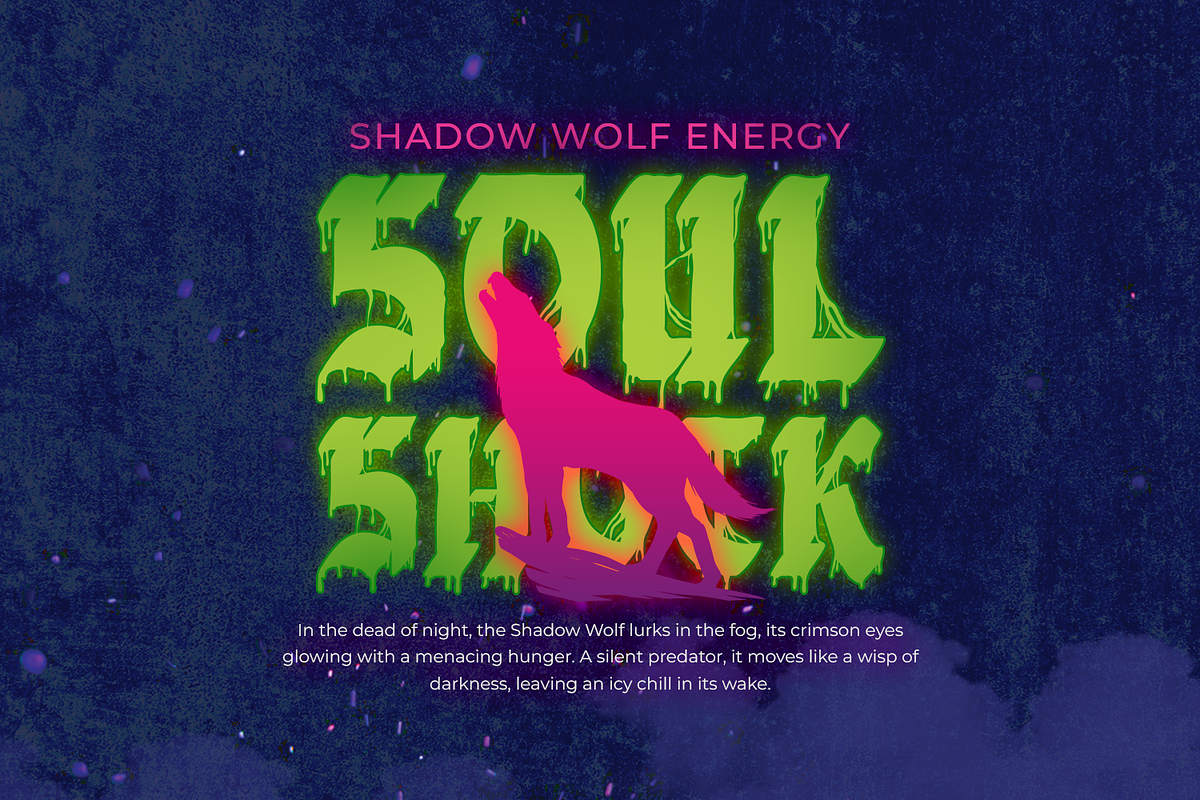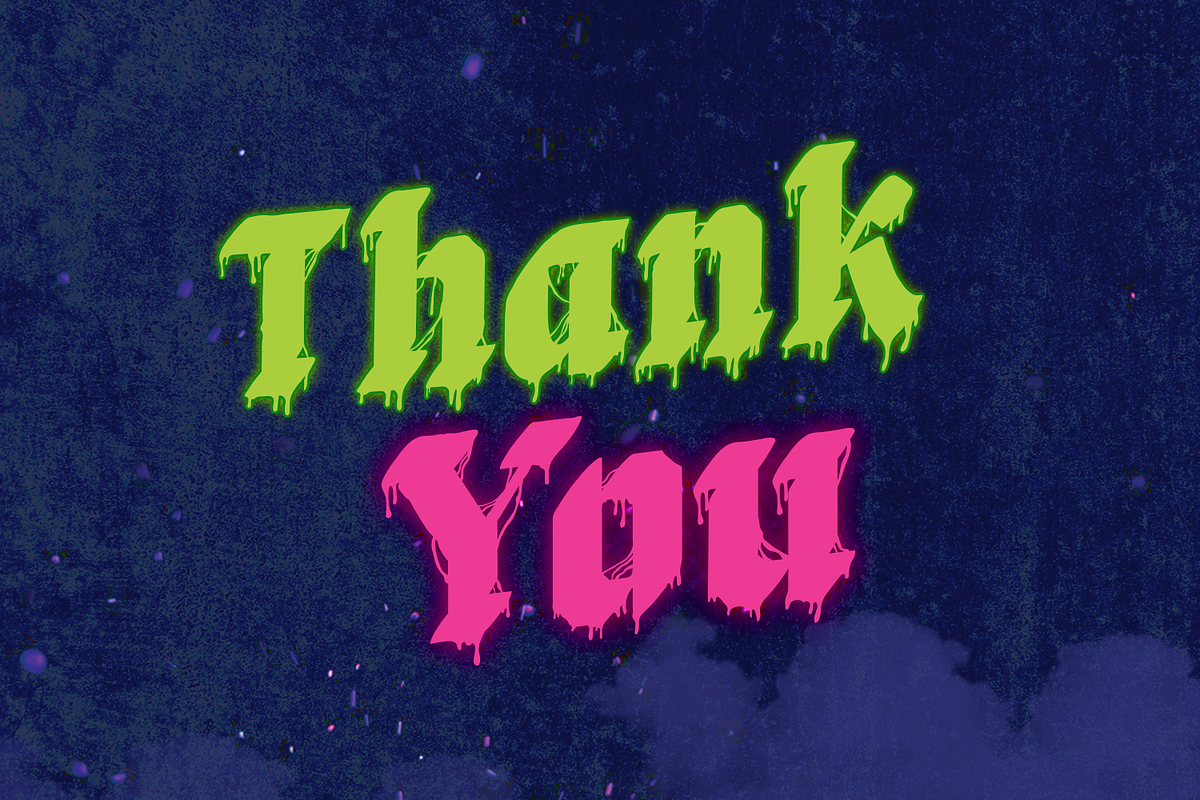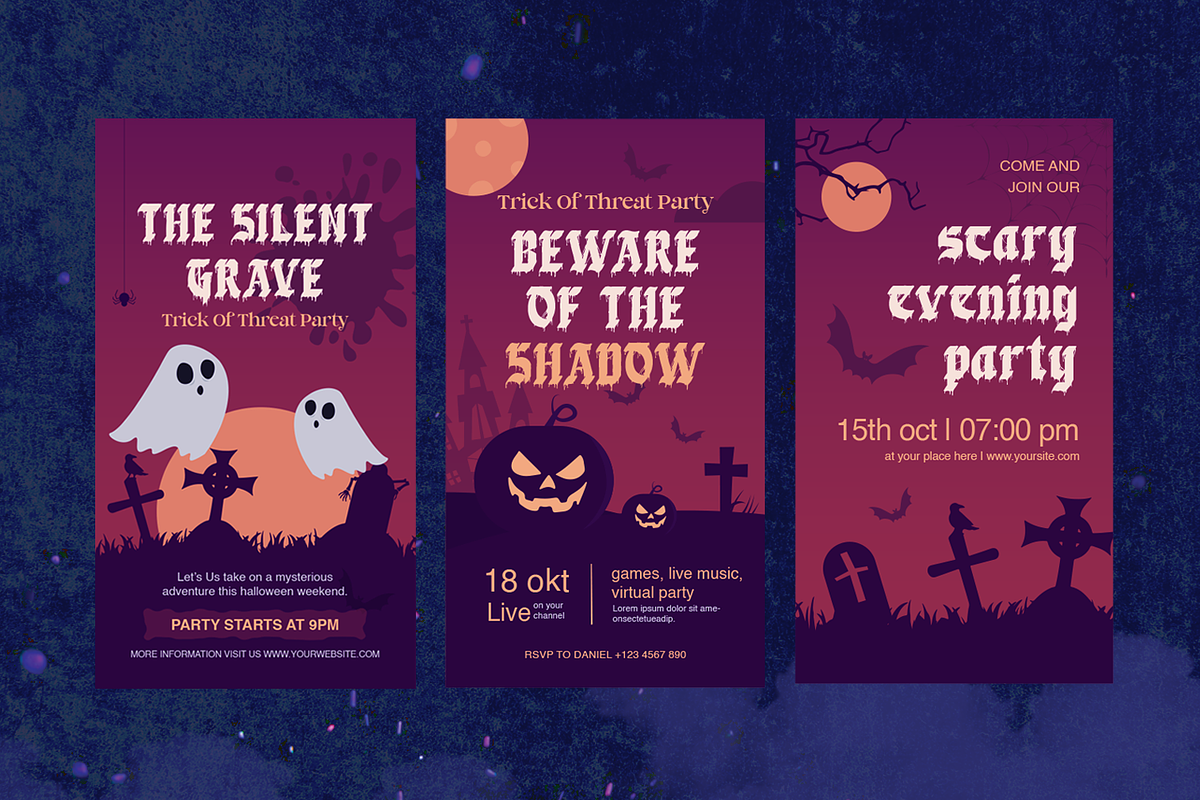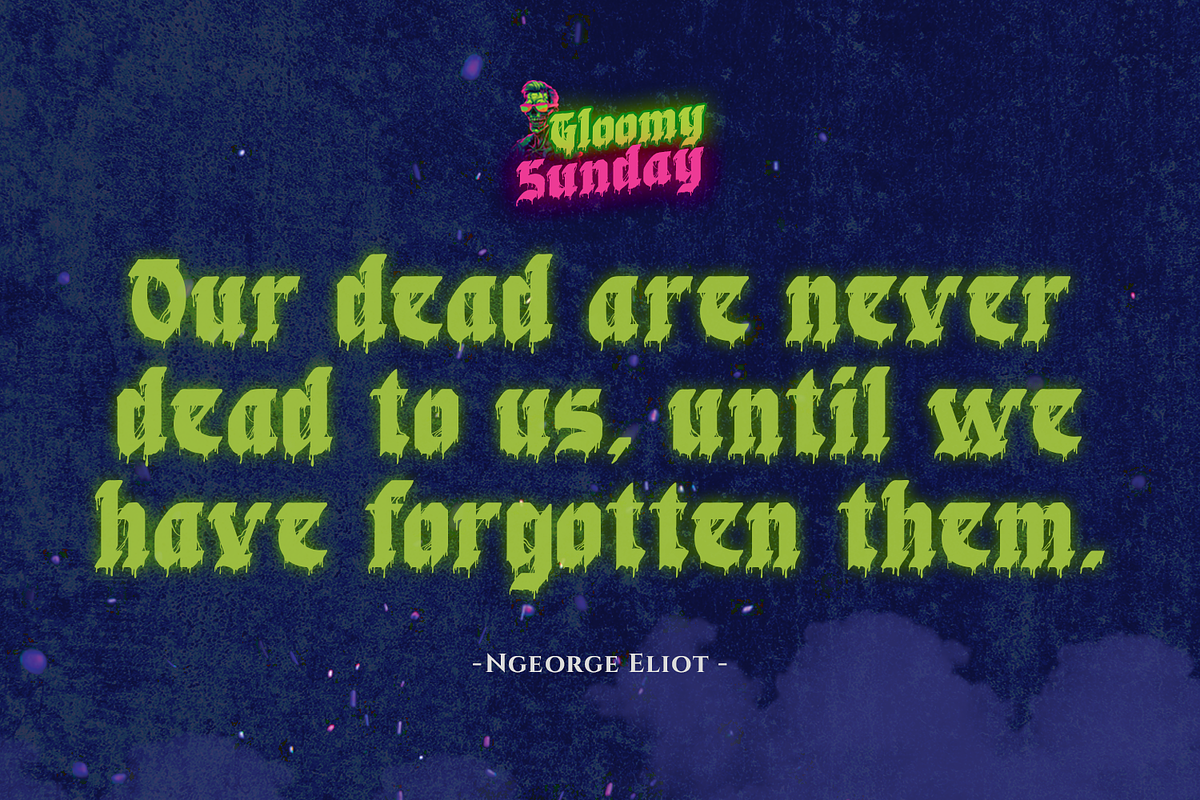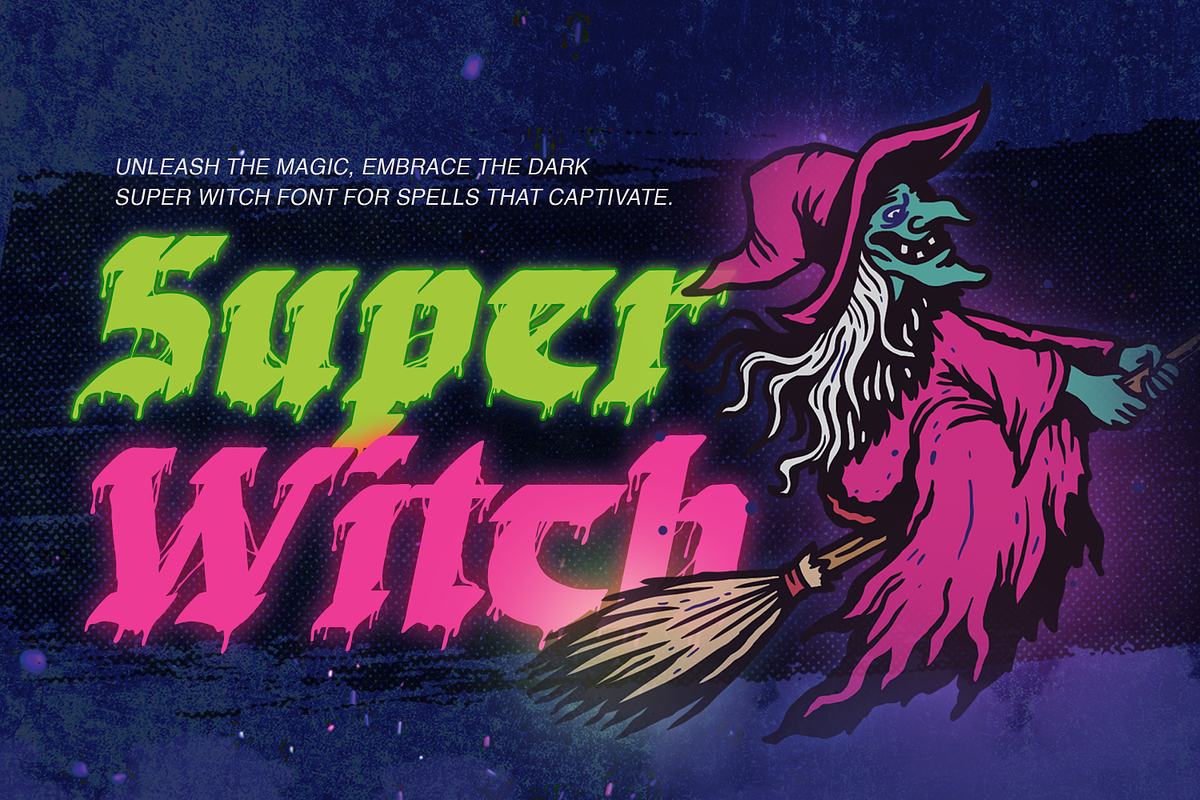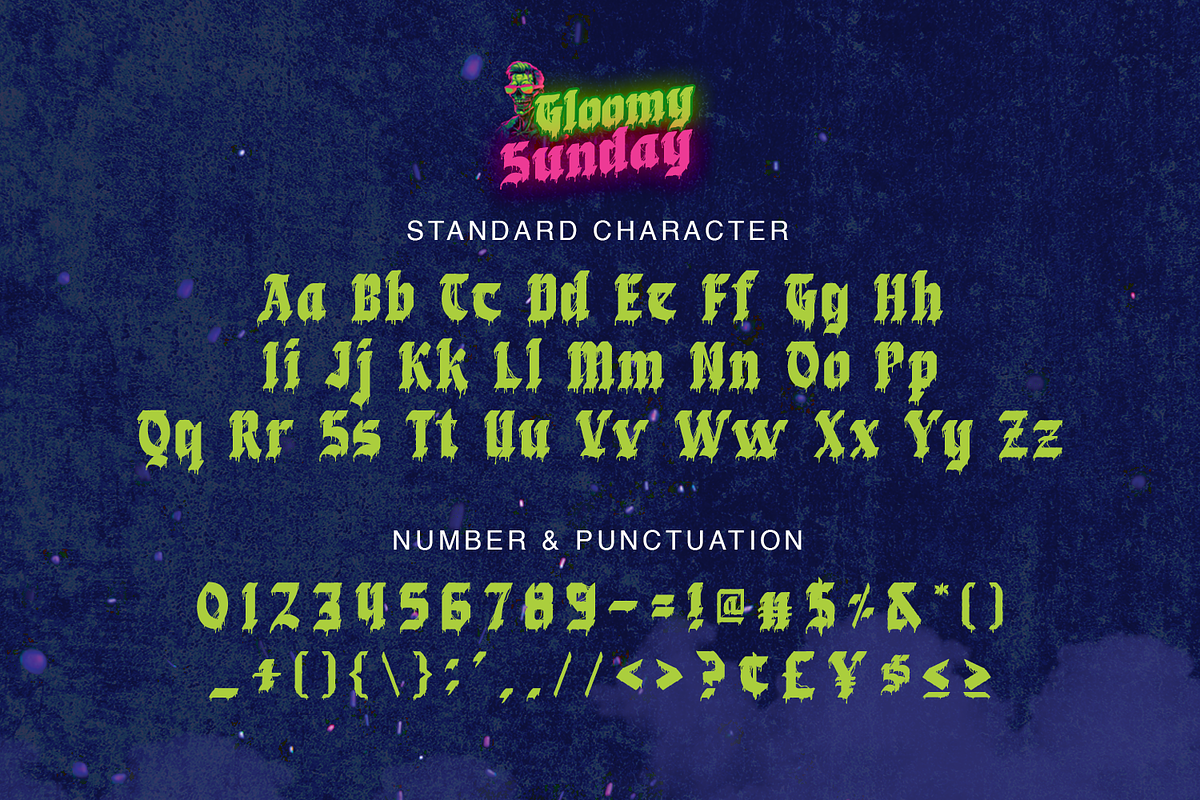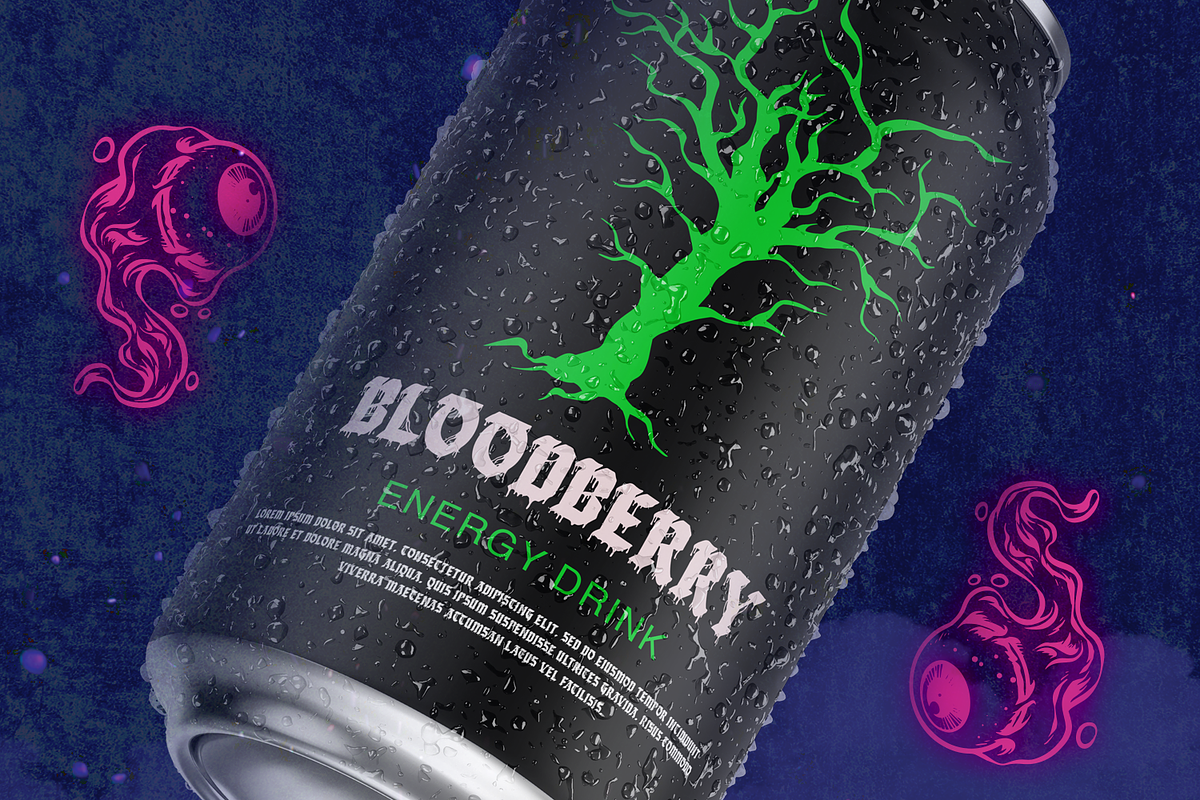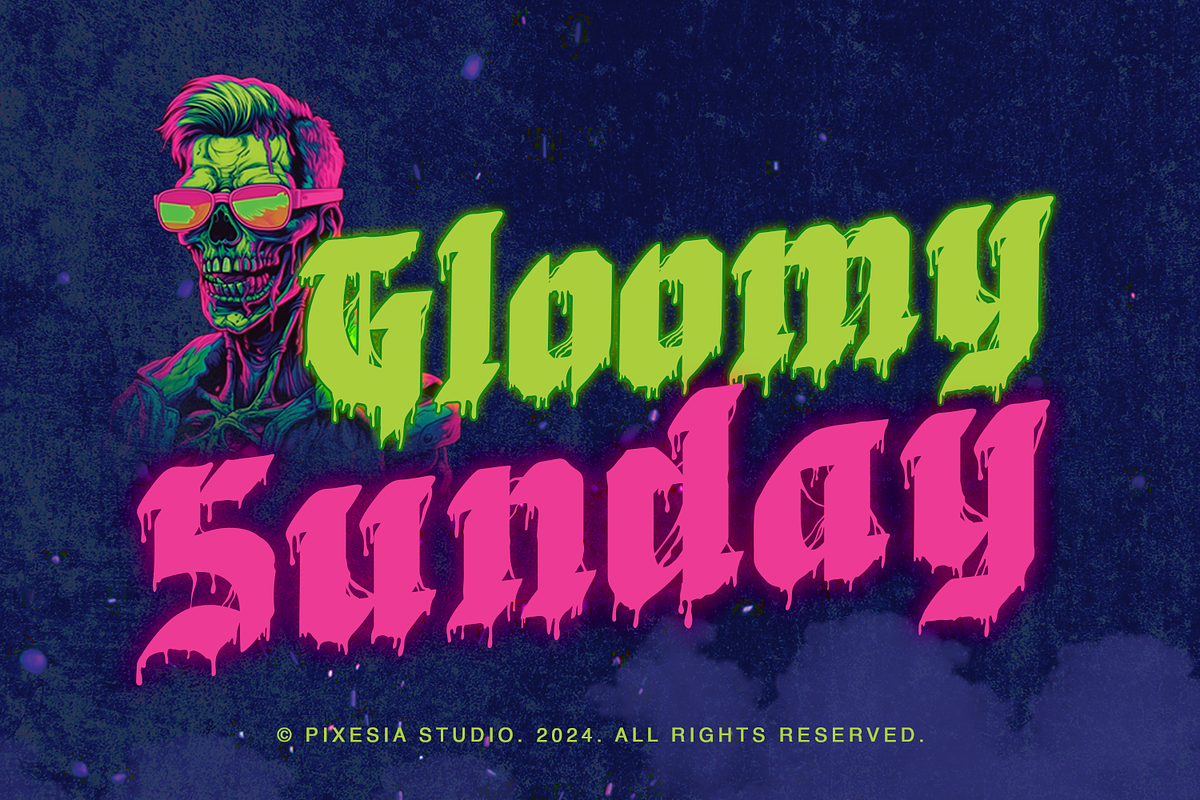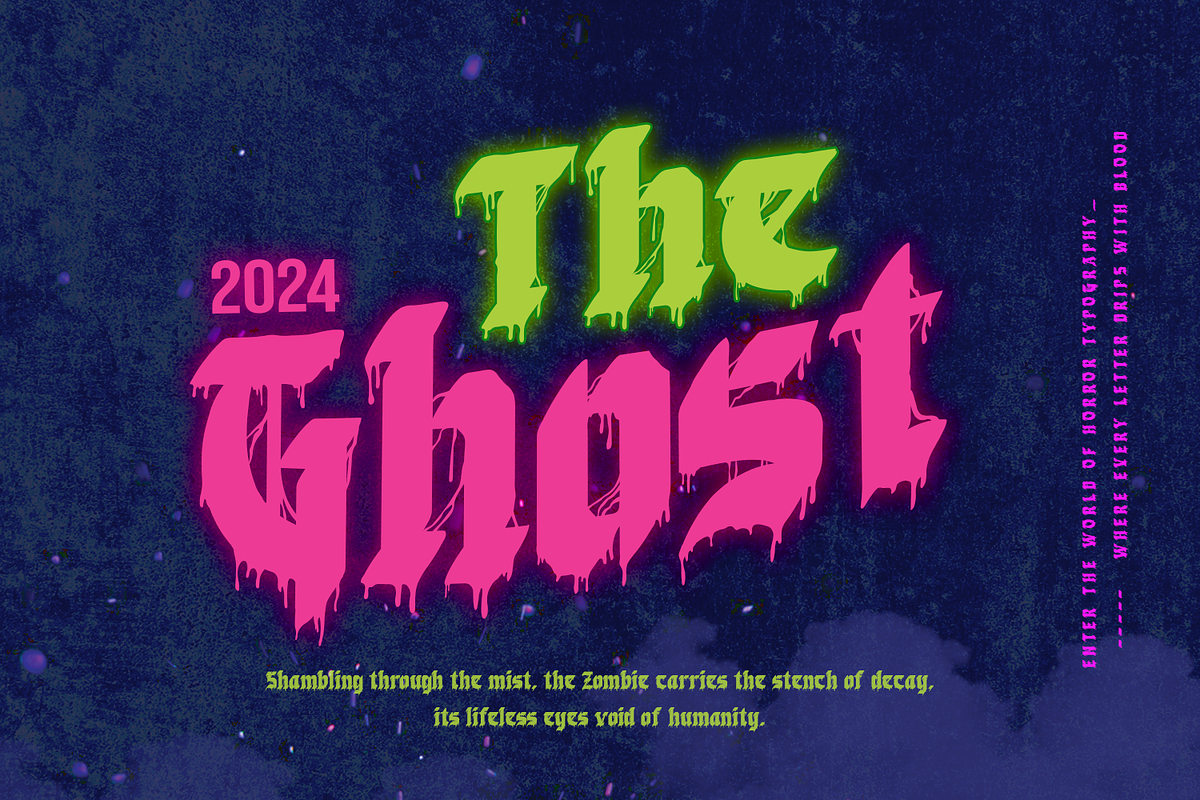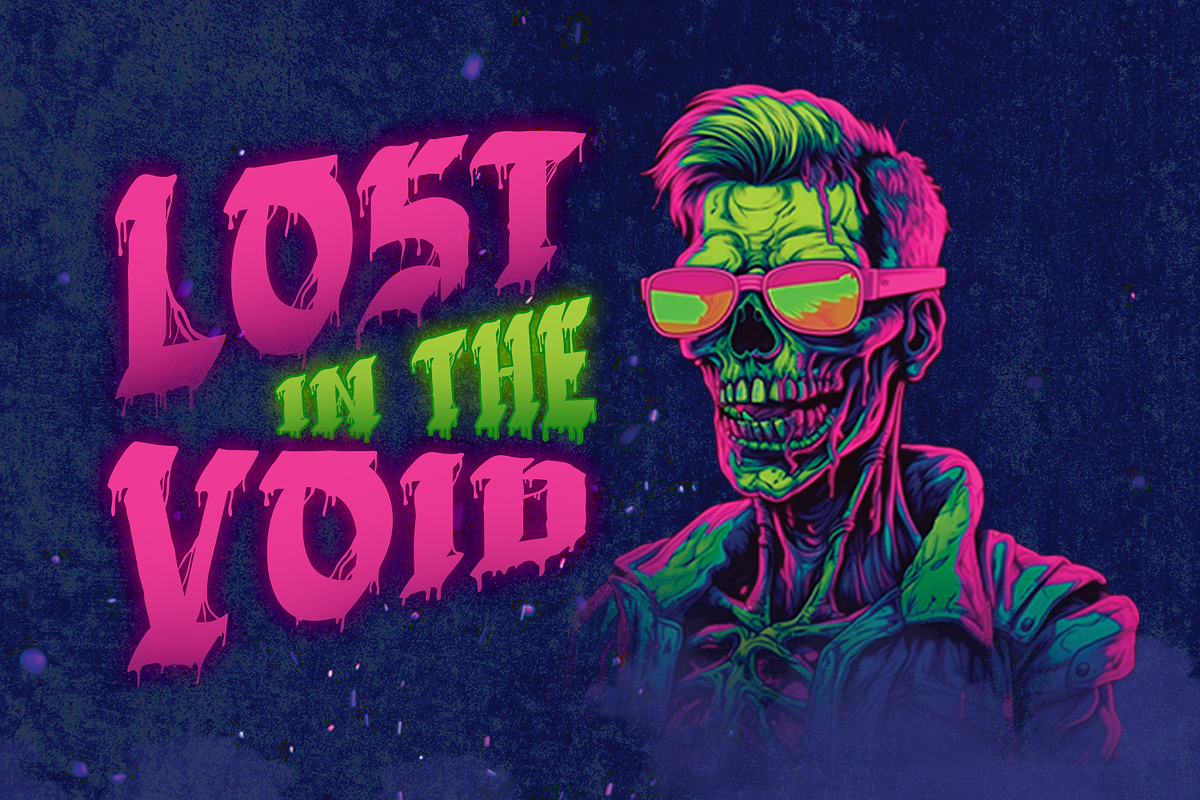
Gloomy Sunday - Dripping Blackletter
Introducing Gloomy Sunday - Dripping Blackletter Font
Gloomy Sunday is a dripping blackletter font that brings a bold and dramatic edge to your designs. Its unique dripping effect adds an eerie, unsettling flair, making it perfect for creating unforgettable projects.
Gloomy Sunday is ideal for horror-themed designs, invitations, edgy posters, album covers, bold logos, social media graphics, merchandise, product packaging, spooky event promotions, and any project looking for a striking, dark, and attention-grabbing aesthetic.